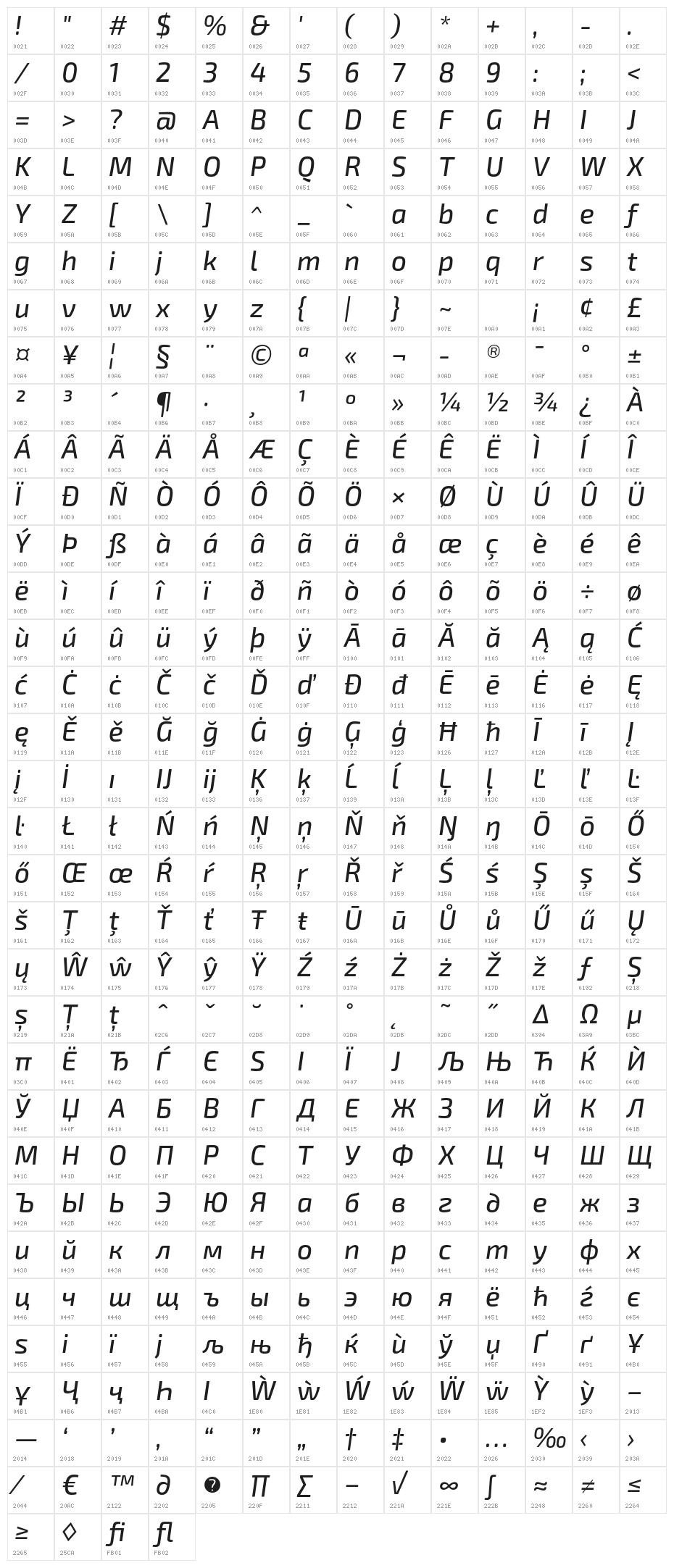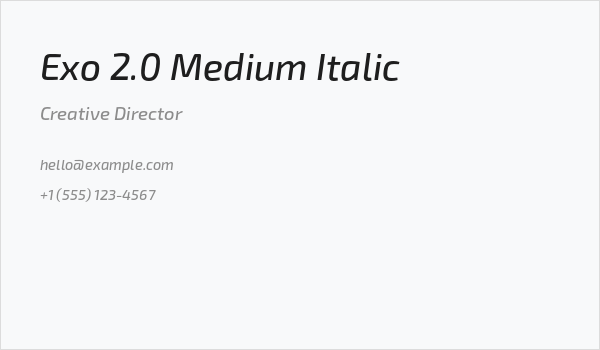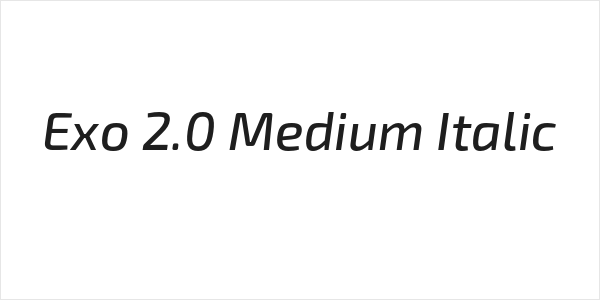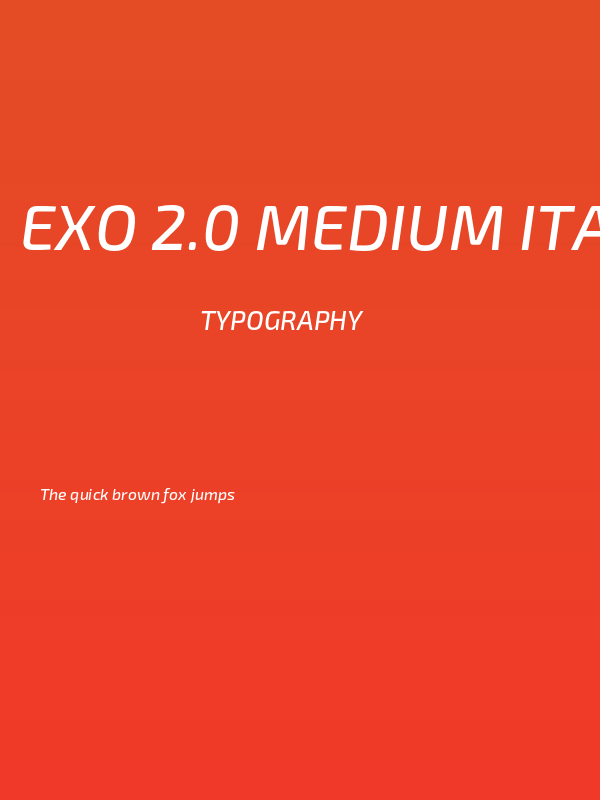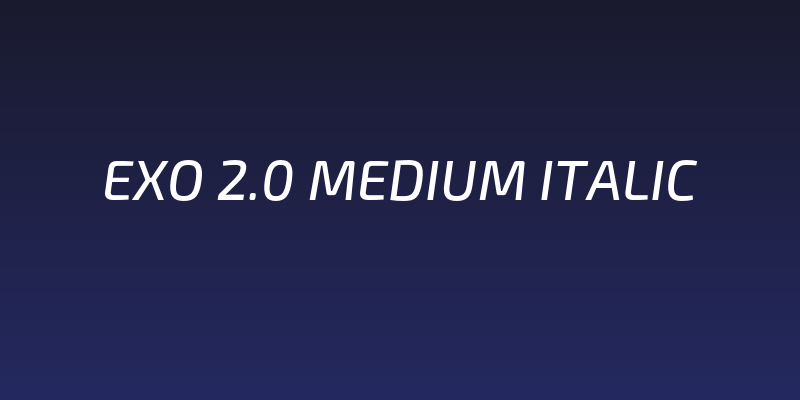
Exo 2.0 Medium Italic Font
Exo 2.0 Medium Italic Description
This font exhibits a sleek, modern design with a slight forward slant, giving it an italicized appearance. It features clean, geometric lines with a consistent stroke width, providing a balanced and harmonious look. The characters are well-proportioned, with a moderate height that enhances readability. The numerals and special characters maintain the same stylistic approach, ensuring uniformity across all elements. Its contemporary style makes it suitable for a variety of digital and print applications.
| Proposed Projects | Ideal for tech-related branding, modern websites, digital interfaces, and sleek advertising materials. |